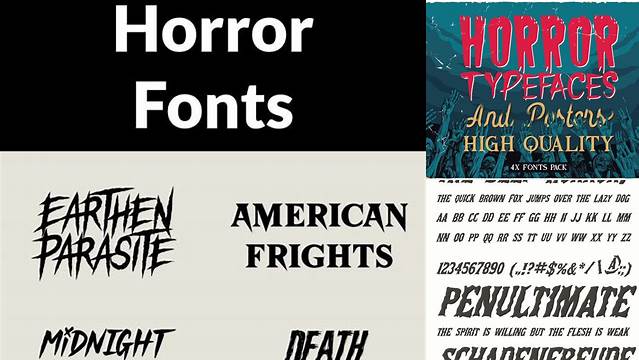
Scary Fonts: Font Meme's Best Horror Typefaces
Hey there, horror aficionados and design enthusiasts! Ever wondered how the right font can send shivers down your spine even before you read a single word? Well, buckle up, because we're about to plunge into the eerie world of horror fonts. These aren't your everyday Times New Roman or Arial; these are the fonts that scream, claw, and whisper nightmares into existence. From movie posters to haunted house signs, the perfect horror font is the unsung hero of all things spooky.
The Psychology of Scary Fonts
Horror fonts, guys, aren't just about looking cool; they're deeply rooted in psychology. Think about it: what makes a font feel scary? It's often the irregularity, the jagged edges, the dripping serifs, and the overall sense of unease they evoke. These fonts tap into our primal fears, triggering associations with blood, decay, and the unknown. A well-chosen horror font can instantly set the tone for your project, whether it's a spine-chilling book cover, a terrifying game interface, or a Halloween-themed party invitation.
Consider the impact of fonts like Creepster or Ghoulish. Their uneven lines and grotesque shapes immediately signal something sinister. On the other hand, a font like Nosferatu uses a more classic, gothic style to create a sense of old-world horror. The key is to understand the specific emotion you're trying to elicit and choose a font that aligns with that feeling. Are you going for a gory, in-your-face scare, or a more subtle, psychological creep? The font you choose will play a crucial role in conveying that message.
Moreover, the effectiveness of scary fonts often lies in their ability to disrupt our expectations. We're so used to seeing clean, legible fonts in our daily lives that when we encounter something distorted and unsettling, it grabs our attention and puts us on edge. It's this element of surprise and unease that makes horror fonts so powerful in visual communication. So, next time you're working on a horror-themed project, remember that the font is more than just a typeface; it's a tool for manipulating emotions and creating a truly terrifying experience.
Iconic Horror Fonts and Their Impact
Let's talk about some iconic horror fonts and how they've left their mark on pop culture. Think about the Psycho font, with its sharp, stabbing serifs that perfectly capture the film's suspense and violence. Or the Exorcist font, which uses a distorted, almost illegible style to convey the demonic possession at the heart of the story. These fonts have become synonymous with their respective movies, instantly recognizable and forever associated with fear.
One of the most enduring examples is the font used in the Texas Chainsaw Massacre poster. Its rough, hand-drawn appearance and blood-red color evoke a sense of raw, visceral terror. The font looks like it was scrawled in blood, adding to the film's reputation for extreme horror. Similarly, the Halloween font, with its simple yet menacing sans-serif design, has become a staple of Halloween decorations and costumes.
These famous horror fonts demonstrate the power of typography in creating a lasting impression. They're not just letters on a page; they're symbols of fear that have been burned into our collective consciousness. When you see these fonts, you don't just read the words; you feel the chill of the movies they represent. This is why choosing the right horror font is so crucial for any project that aims to scare – it can make the difference between a forgettable design and a truly terrifying experience.
Where to Find the Best Horror Fonts
So, where can you find these amazing horror fonts to use in your own projects? The good news is that there are tons of resources available online, both free and paid. Websites like Dafont, Fontspace, and Creative Market offer a wide selection of horror fonts, ranging from classic styles to more modern and experimental designs. Just be sure to check the licensing terms before using any font, especially for commercial projects.
When searching for scary and spooky fonts, it's helpful to use specific keywords to narrow down your results. Try searching for terms like "dripping fonts," "grunge fonts," "gothic fonts," or "horror fonts free download" to find exactly what you're looking for. You can also browse through font categories on these websites, which are often organized by theme or style.
If you're looking for something truly unique, consider commissioning a custom font designer. This can be a more expensive option, but it allows you to create a font that perfectly matches your vision. A custom font can also help you stand out from the crowd and create a memorable brand identity for your horror-themed project. Whether you're a seasoned designer or just starting out, there are plenty of resources available to help you find the perfect horror font for your needs.
Tips for Using Horror Fonts Effectively
Okay, you've found the perfect terrifying font: now what? Using horror fonts effectively requires a bit of finesse. Overdoing it can make your design look amateurish or even comical. The key is to use these fonts sparingly and strategically, in conjunction with other design elements.
First, consider the context in which you're using the font. Is it for a headline, a body of text, or a logo? Horror fonts are typically best suited for headlines or short phrases, as their often-complex designs can be difficult to read in large blocks of text. If you're using a horror font for a headline, make sure it's large enough to be legible but not so large that it overwhelms the rest of the design.
Second, pay attention to the color and background. Creepy fonts often look best when paired with dark colors, such as black, red, or deep purple. You can also use textures or patterns to add to the overall effect. For example, a font with a distressed or grunge texture can look great against a rough, uneven background. Experiment with different combinations to see what works best for your project.
Finally, don't be afraid to mix and match fonts. Pairing a horror font with a more neutral font can create a sense of contrast and make your design more visually appealing. Just be sure to choose fonts that complement each other in terms of style and weight. With a little experimentation, you can create a truly terrifying design that will leave a lasting impression on your audience.
The Future of Horror Fonts
What does the future hold for horror fonts? As design trends continue to evolve, we can expect to see even more innovative and experimental horror fonts emerge. Designers are constantly pushing the boundaries of typography, creating fonts that are more unsettling, more grotesque, and more visually stunning than ever before.
One trend that's likely to continue is the use of custom fonts in horror movies and video games. Custom fonts allow designers to create a unique visual identity for their projects, setting them apart from the competition. We may also see more horror fonts that incorporate elements of technology, such as glitch effects or digital distortions.
Another exciting development is the rise of variable fonts, which allow designers to adjust the weight, width, and other characteristics of a font on the fly. This opens up new possibilities for creating dynamic and interactive designs that respond to user input. Imagine a horror font that changes its appearance based on the viewer's heart rate or the time of day! The possibilities are endless.
In conclusion, horror fonts are a powerful tool for creating fear and suspense in visual communication. Whether you're designing a movie poster, a book cover, or a Halloween-themed invitation, the right font can make all the difference. So, embrace the darkness, experiment with different styles, and unleash your inner horror designer! And remember, guys, a good font can be scarier than any monster under the bed.